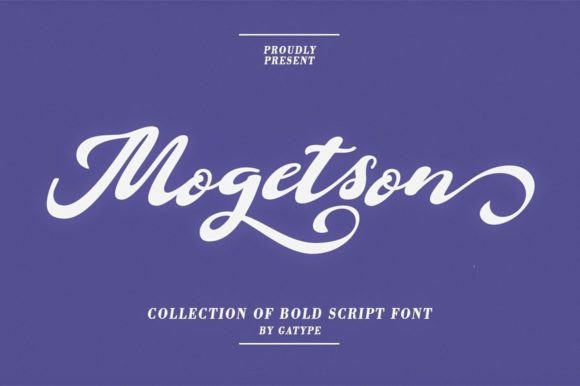
Dive into a world of creative expression with the captivating Mogetson Font, where sophistication meets playfulness. This cursive script font is a masterpiece of bold contrasting strokes and a hint of binder, granting you a spectrum of alternatives to unleash your imagination.
Express yourself with flair, whether it's through striking logo designs, captivating social media posts, or titles that dance off the page. Mogetson effortlessly adapts to your creative vision, bringing life to movie titles, book covers, and even extended passages of text. Its versatility doesn't stop there – it complements sans or serif fonts flawlessly, adding a dash of elegance to your secondary text.
With Mogetson, you'll create stunning masterpieces that captivate and inspire. Its PUA encoding ensures effortless access to an array of glyphs and ligatures, empowering you to weave a tapestry of visual enchantment. Step into the realm of creativity with Mogetson Font and witness the transformation of your designs into breathtaking works of art.